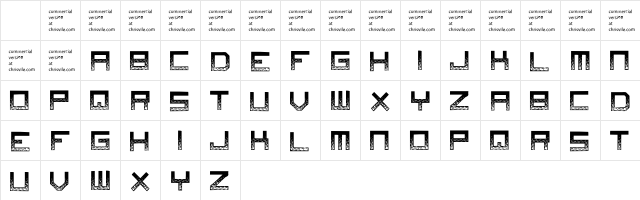
Complete Digital Disorder Regular glyph index. Displaying only characters natively supported by Digital Disorder Regular font.
Digital Disorder has a distinctly futuristic character, with geometric precision and clean angles that feel at home in technology, gaming, and sci-fi contexts.